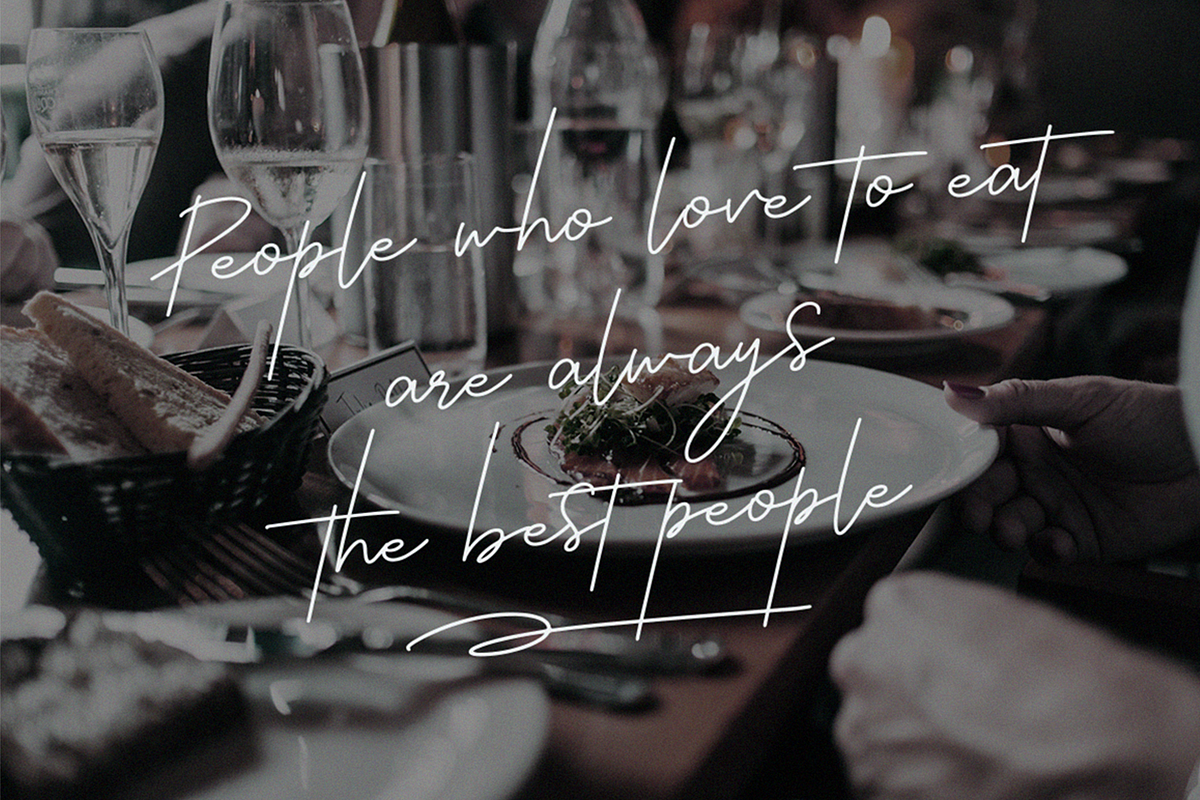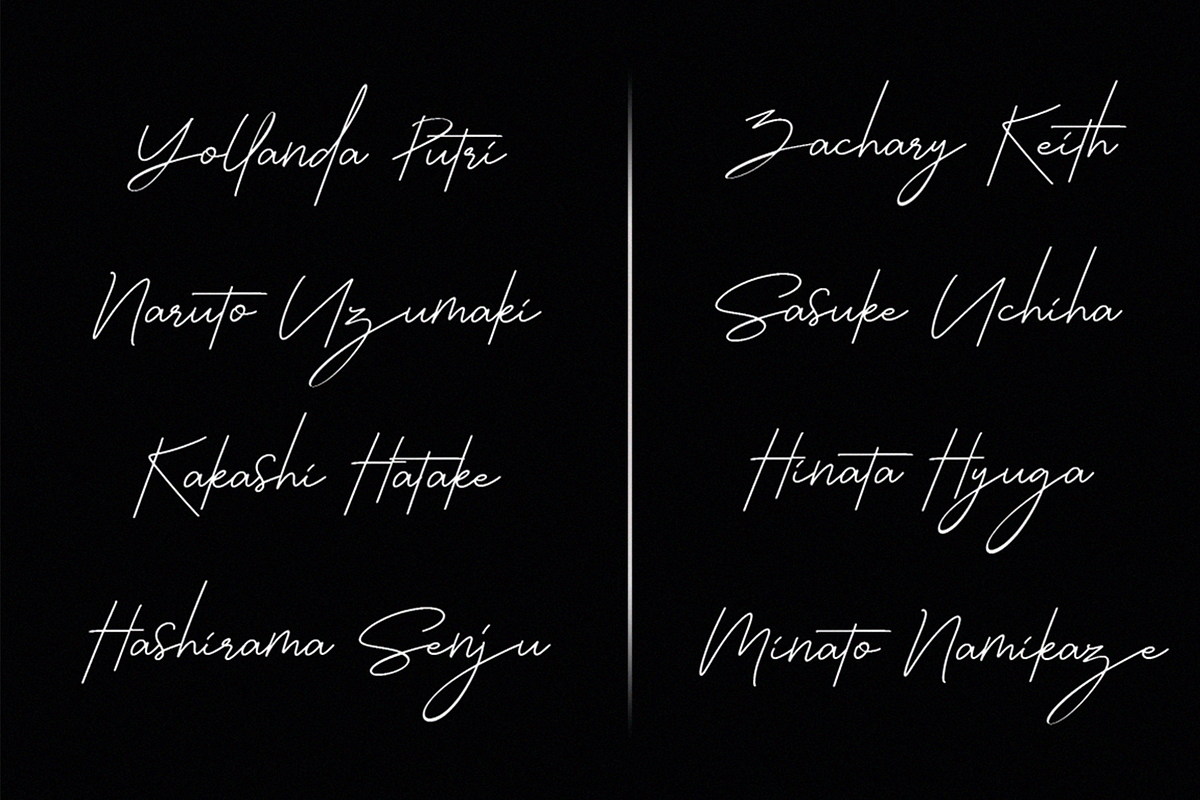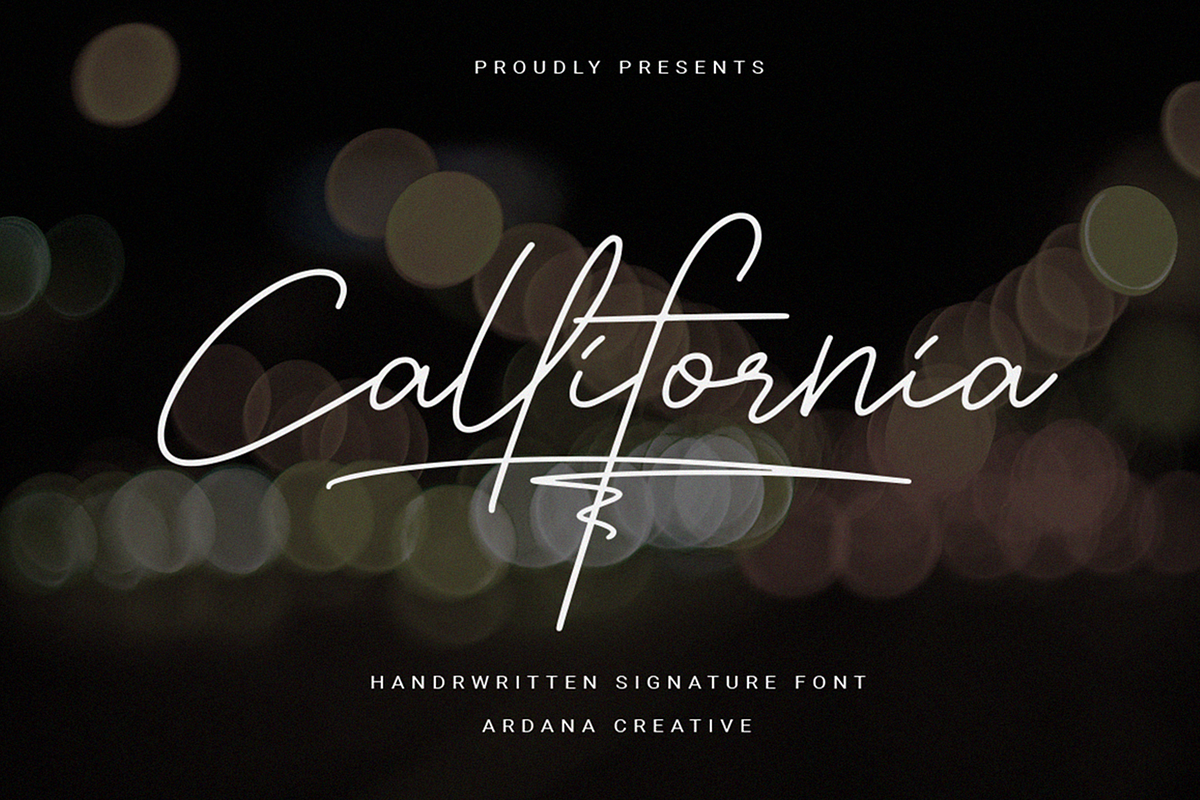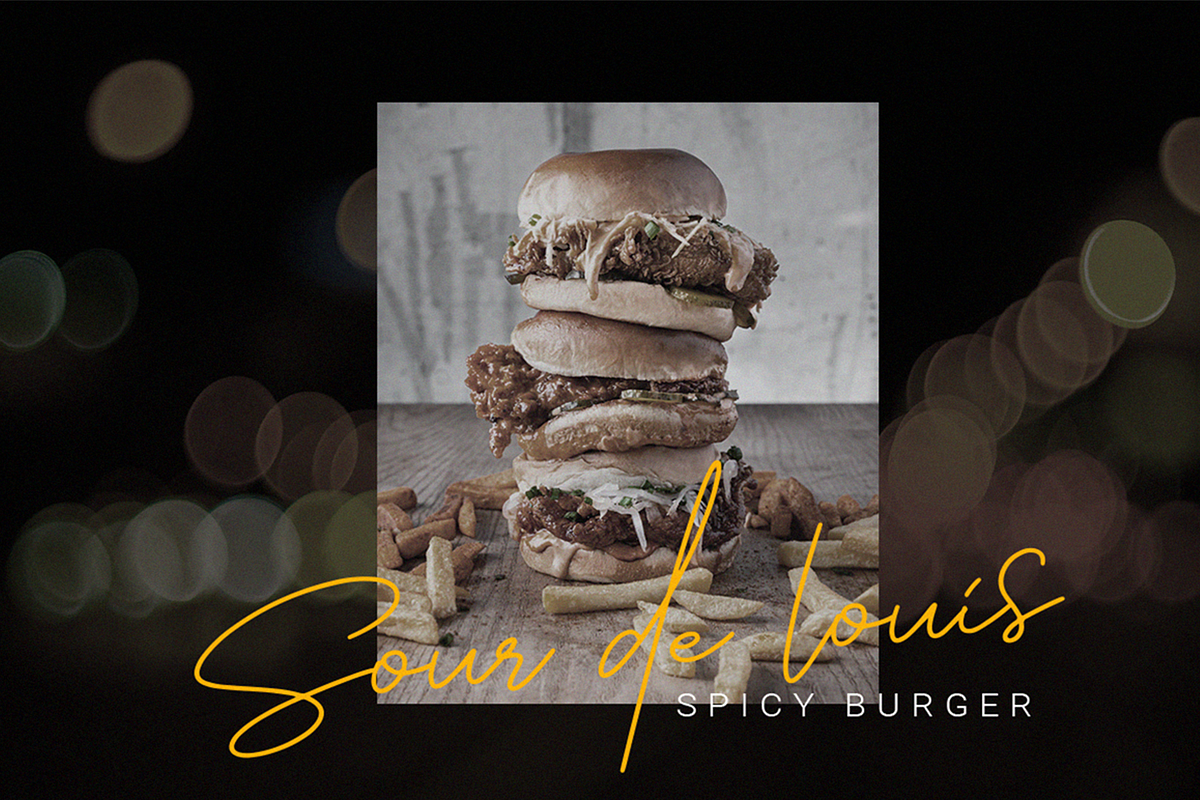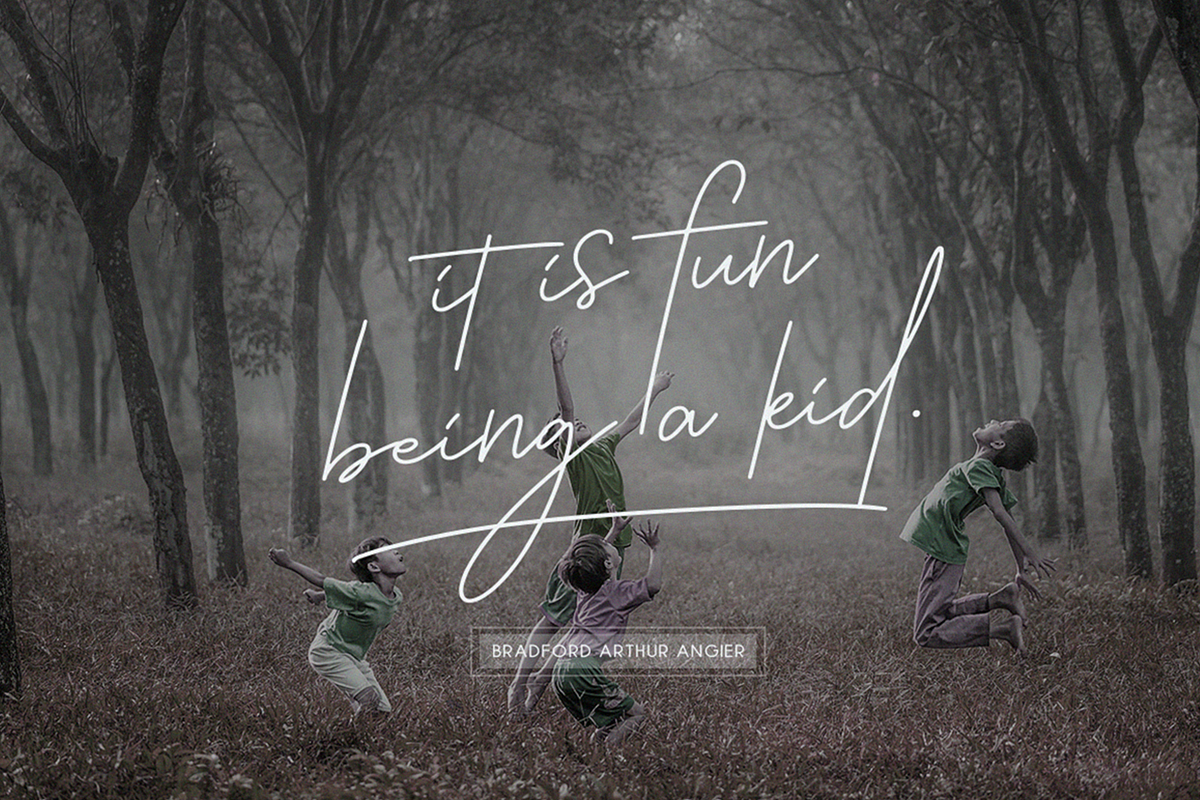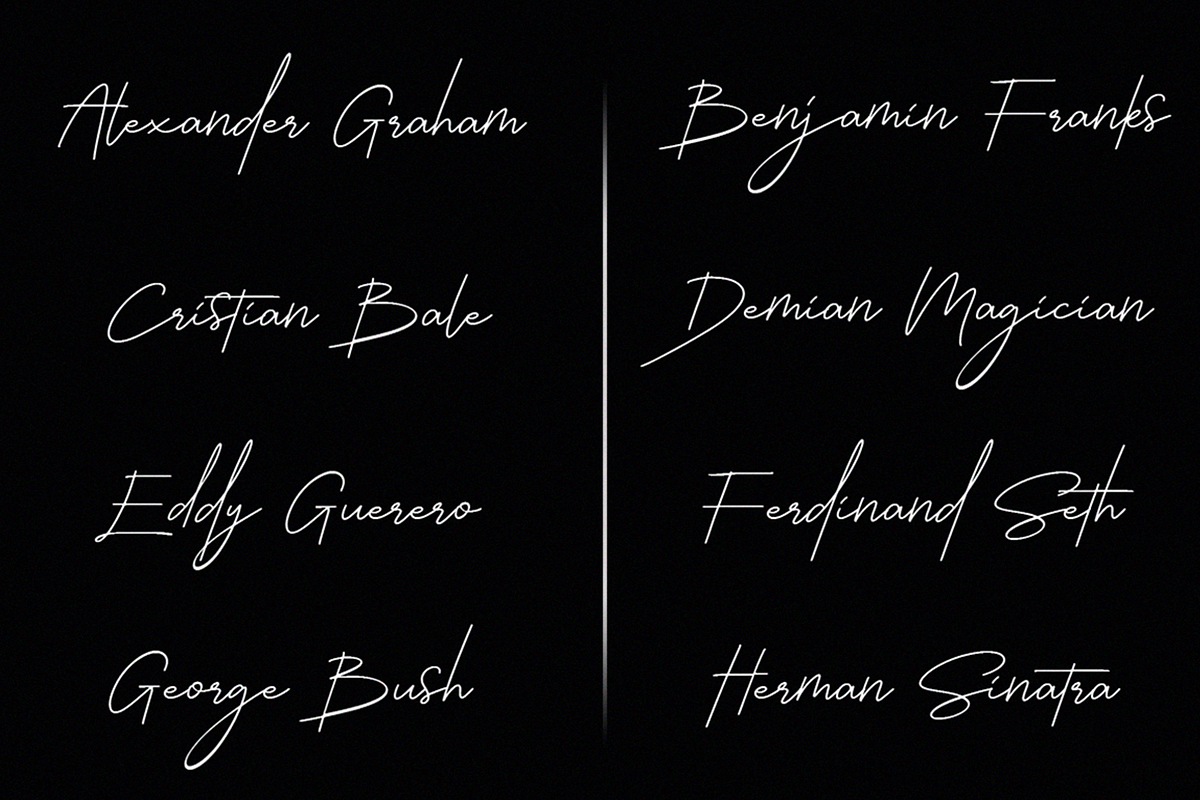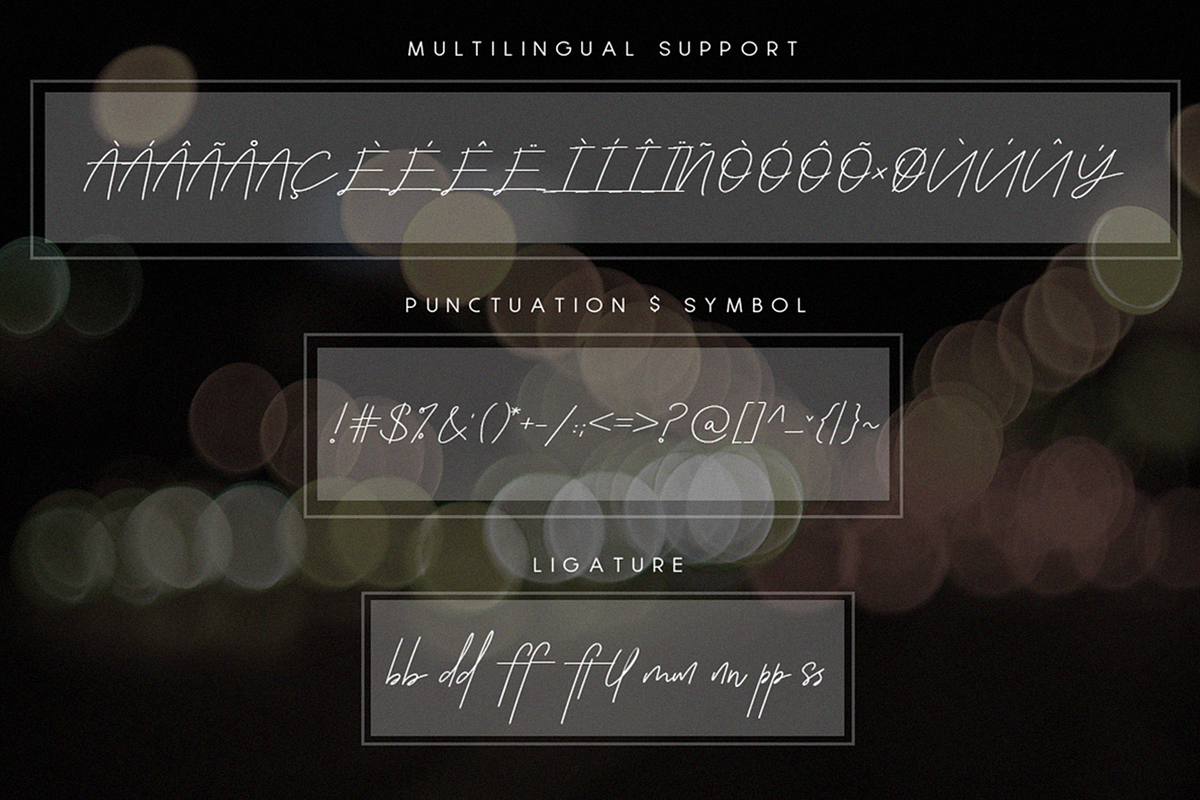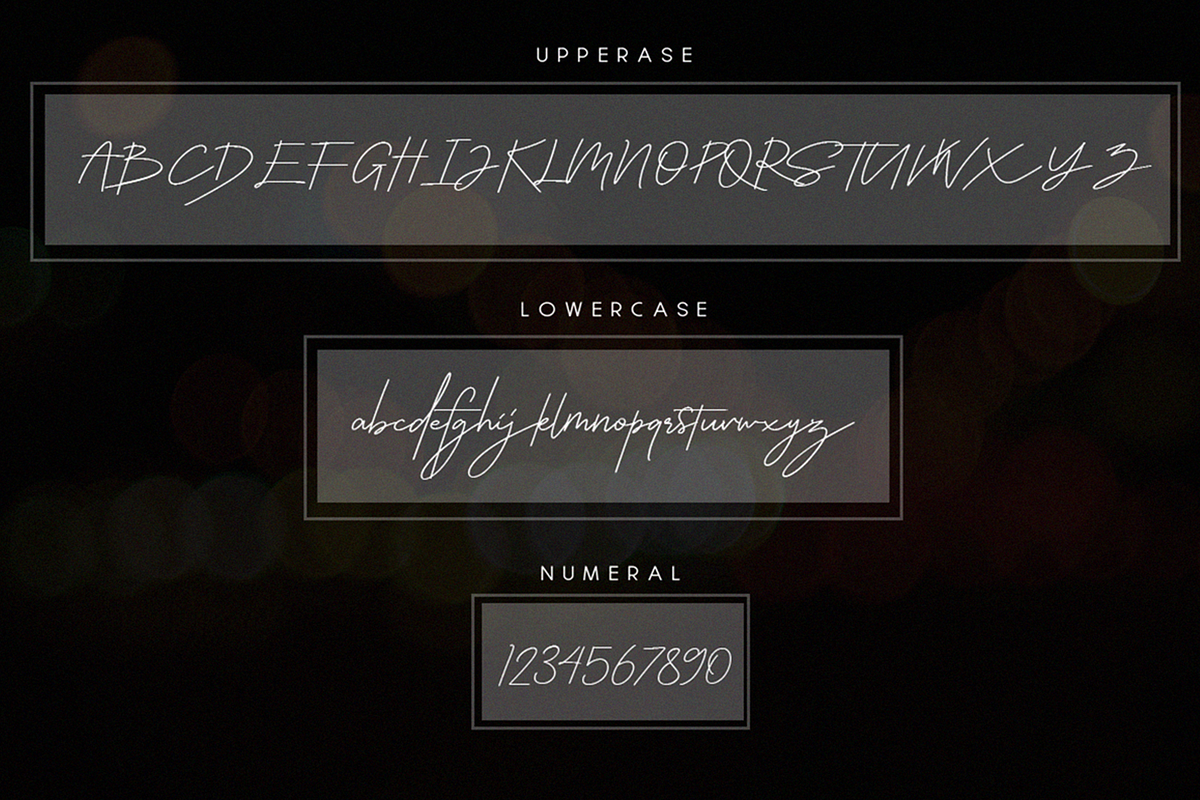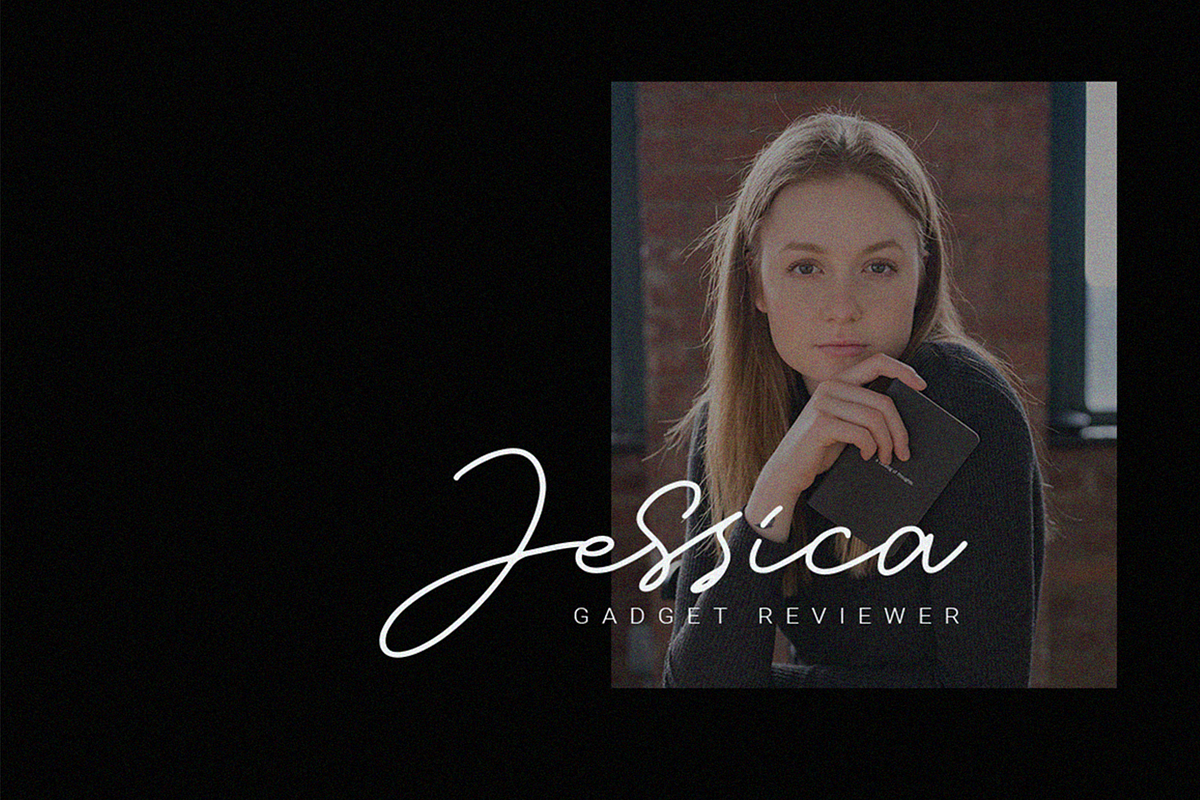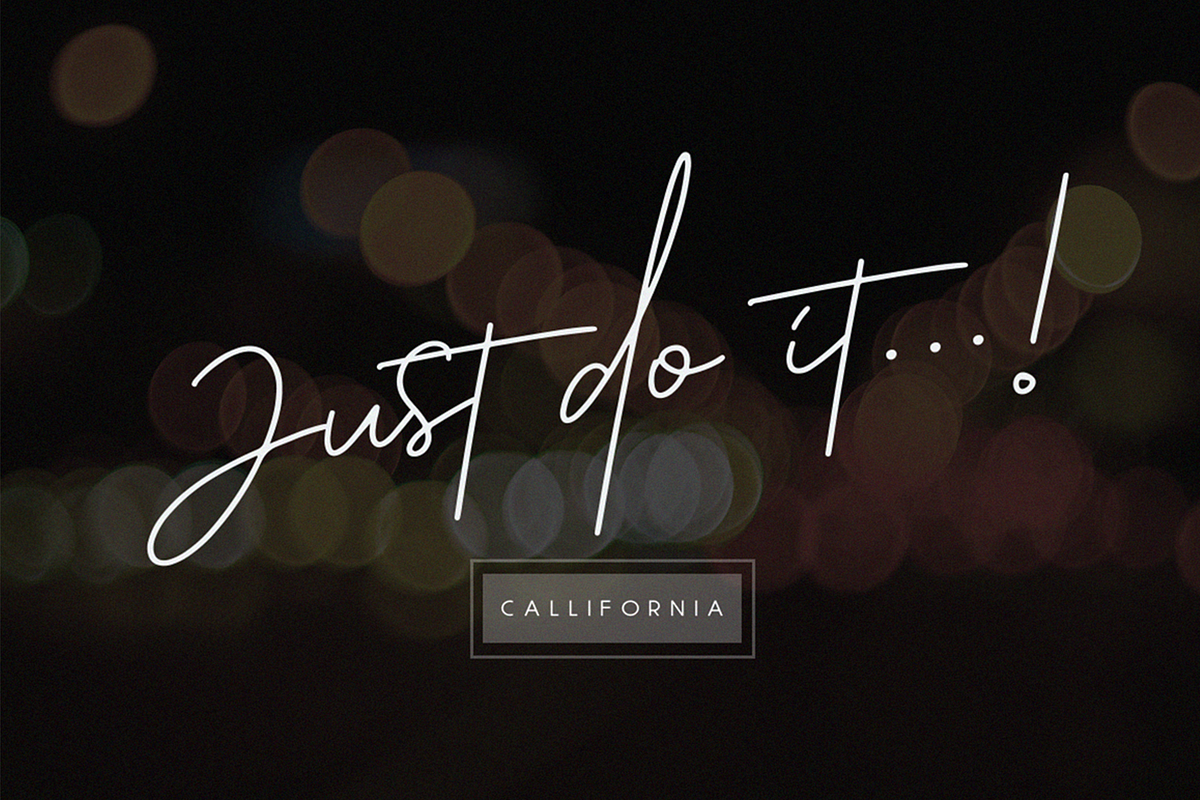
Callifornia | Handwritten Signature
Callifornia is stylish signature script font that supports OpenType features and includes numeral, punctuation, ligatures and it also supports multi-languages. This font is perfect for branding projects, logos, wedding designs, social media posts, advertisements, product packaging, product designs, label, photography, watermark, invitation, stationery, and any projects that need an elegant feel.
Callifornia features:
A full set of upper & lowercase characters
Numbers & punctuations
Multilingual language support